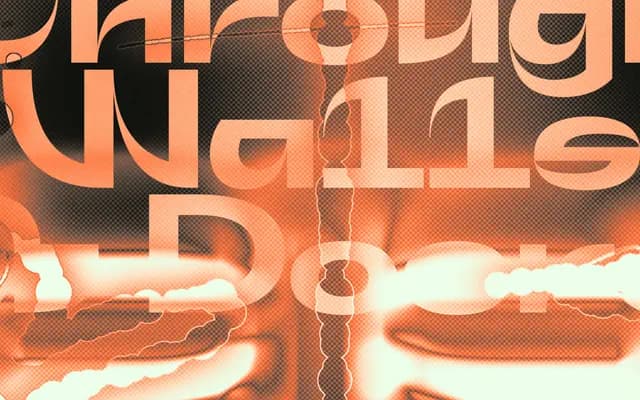
Yokai
Off Type · Valerio Monopoli
A broad, low-x-height extended grotesque with brutalist and futuristic leanings, built around semi-fixed-width letterforms and mirrored uppercase alternates.
Designed by Valerio Monopoli, Yokai is an extended grotesque with a deliberately squat proportion and low x-height that gives it an otherworldly, compressed presence. The family spans seven weights from Extralight to Extrabold, each containing 590 glyphs, and is available as a variable font. OpenType features include mirrored uppercase alternates, discretionary ligatures, ring-shaped dots and old-style figures, lending it flexibility for display and branding work where character is a priority.
Described explicitly as an extended grotesque by the foundry, with broad, semi-fixed-width letterforms, low x-height and a brutalist character that places it firmly in the grotesque sans-serif tradition.